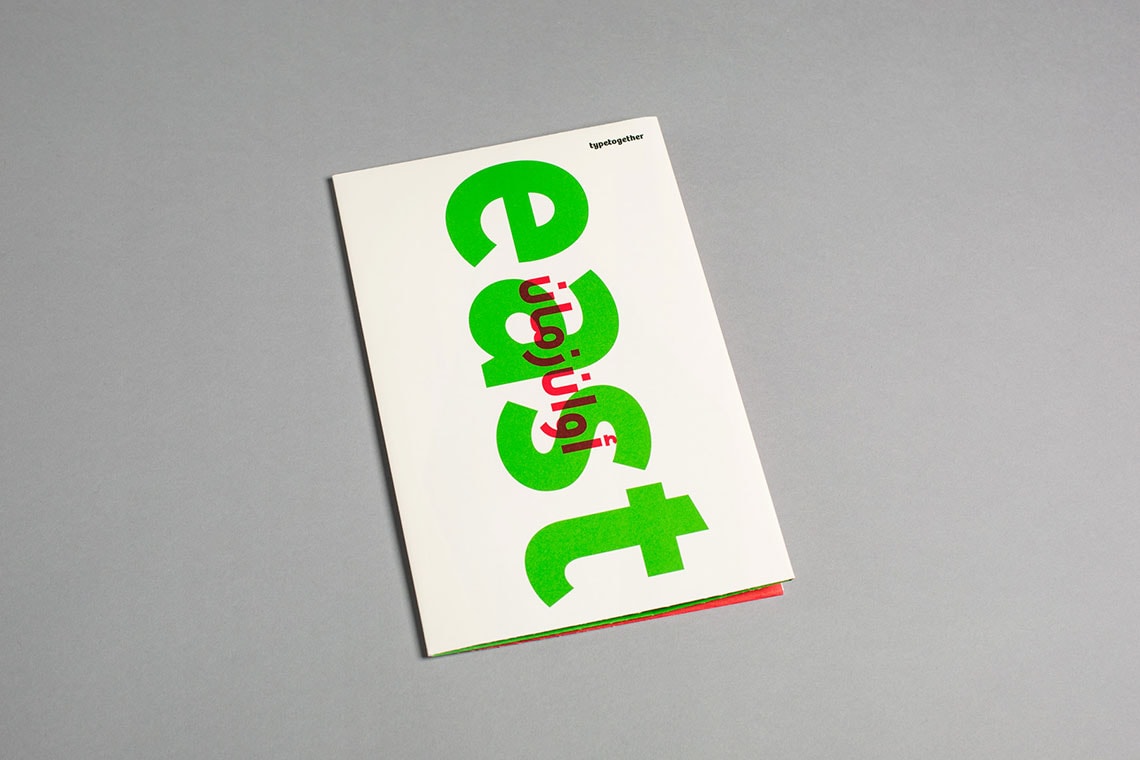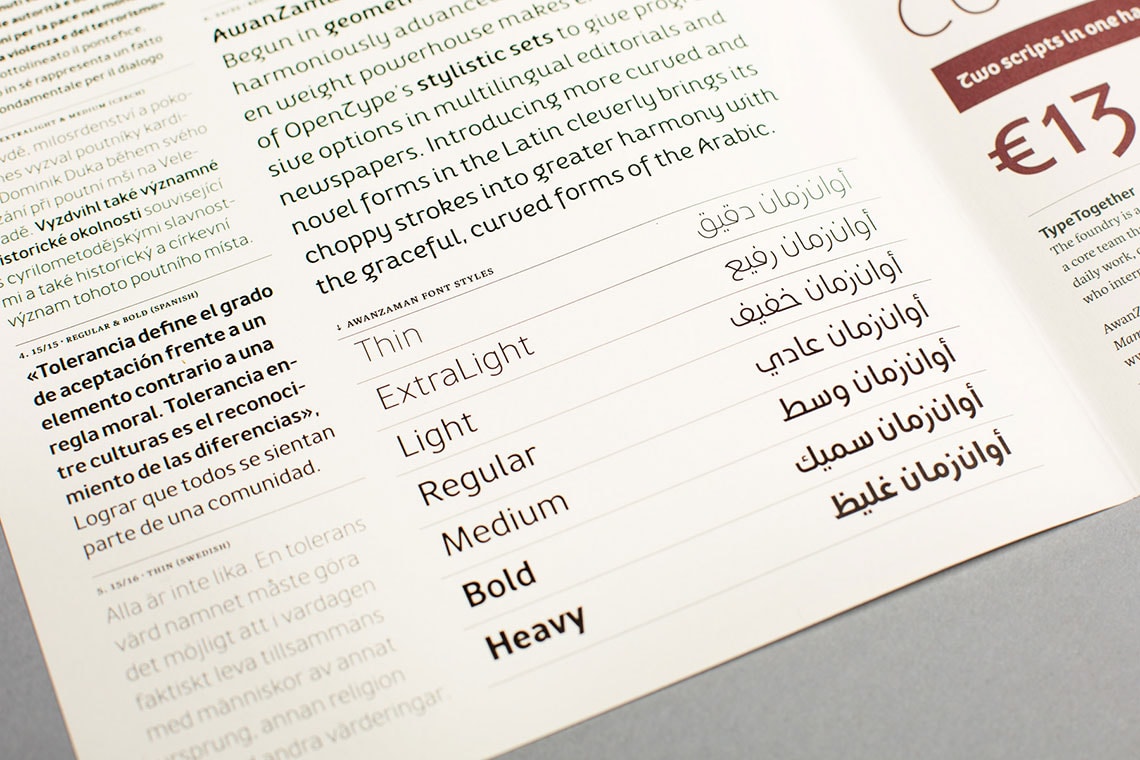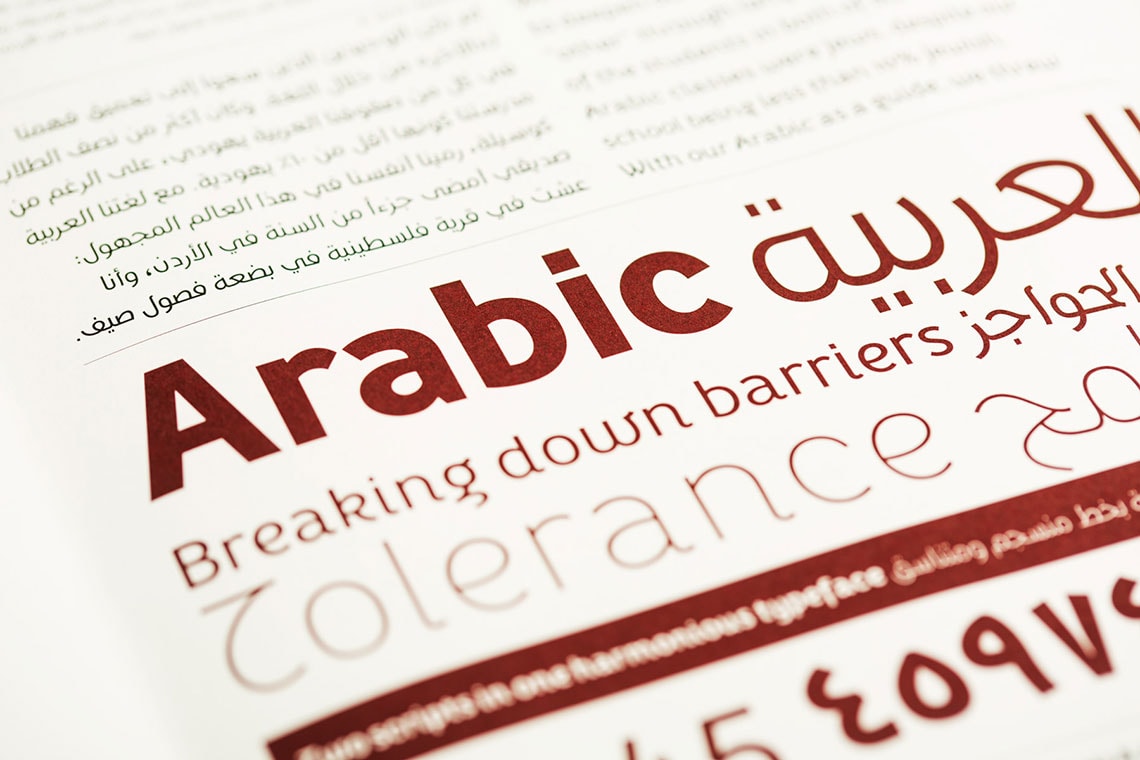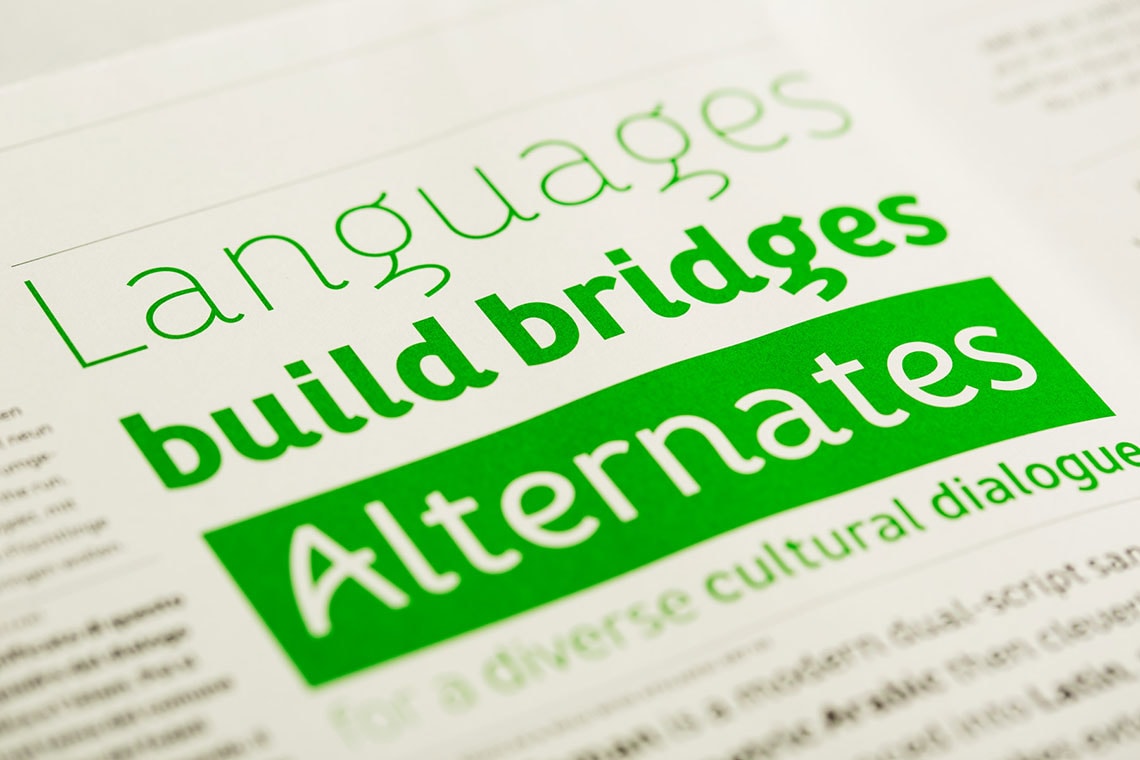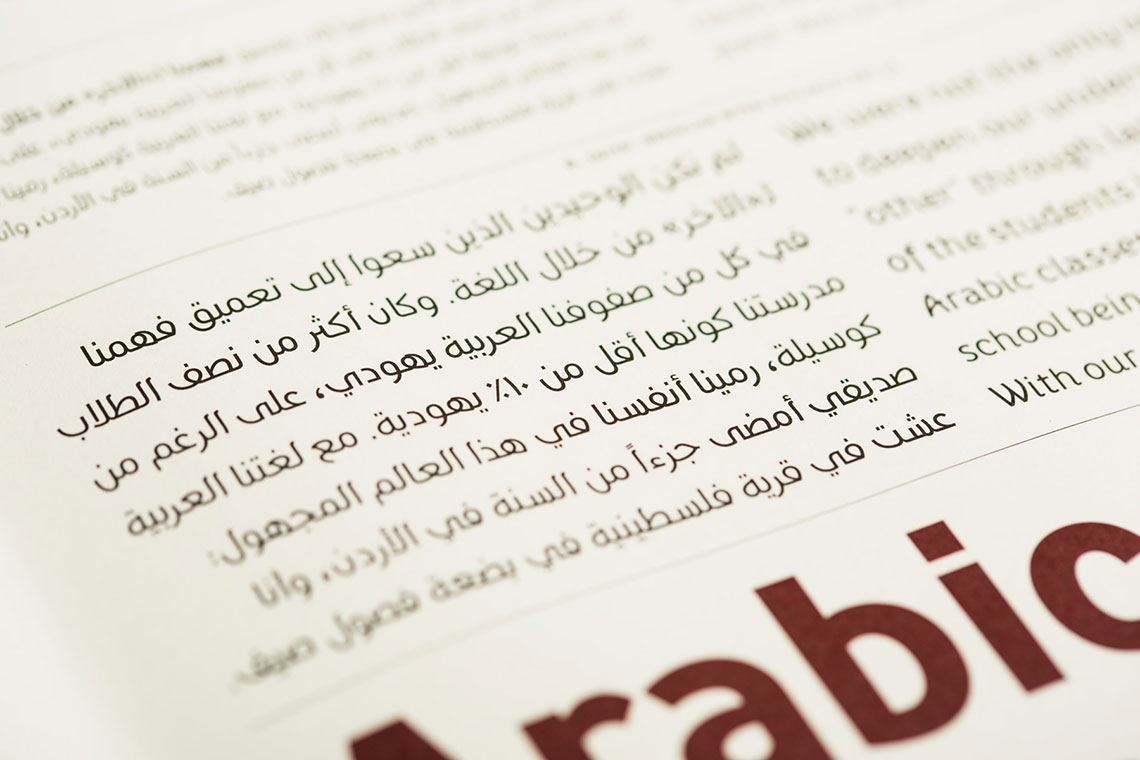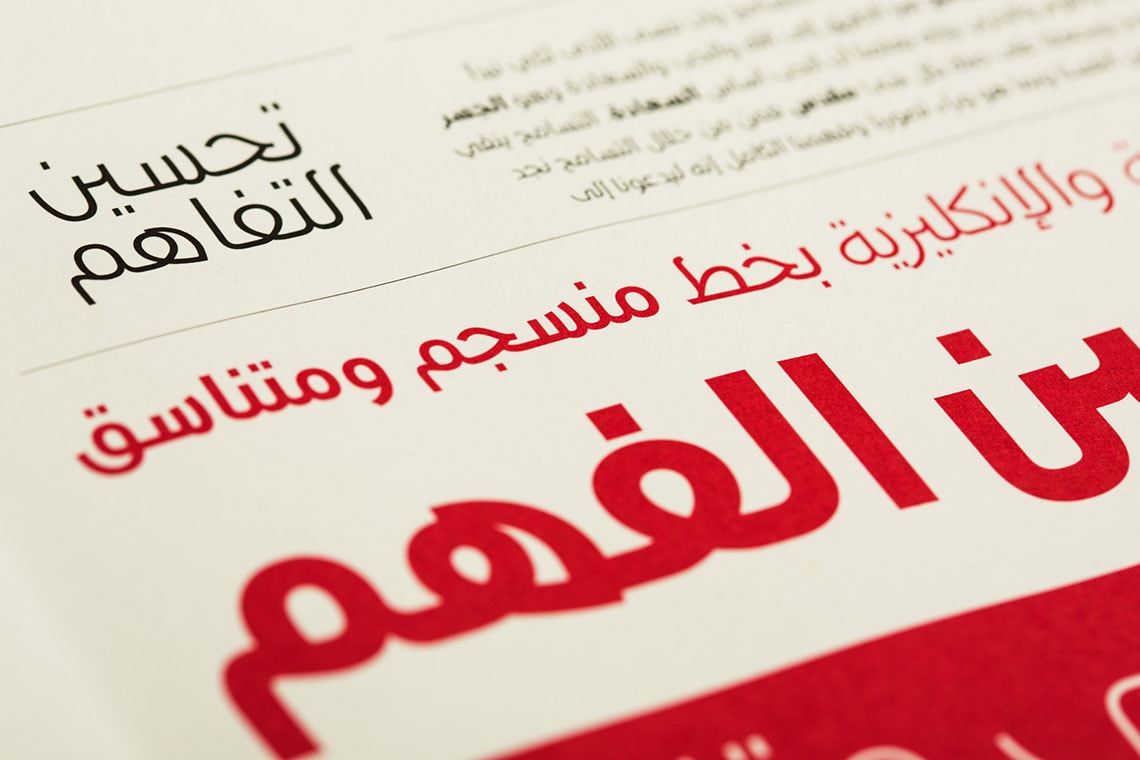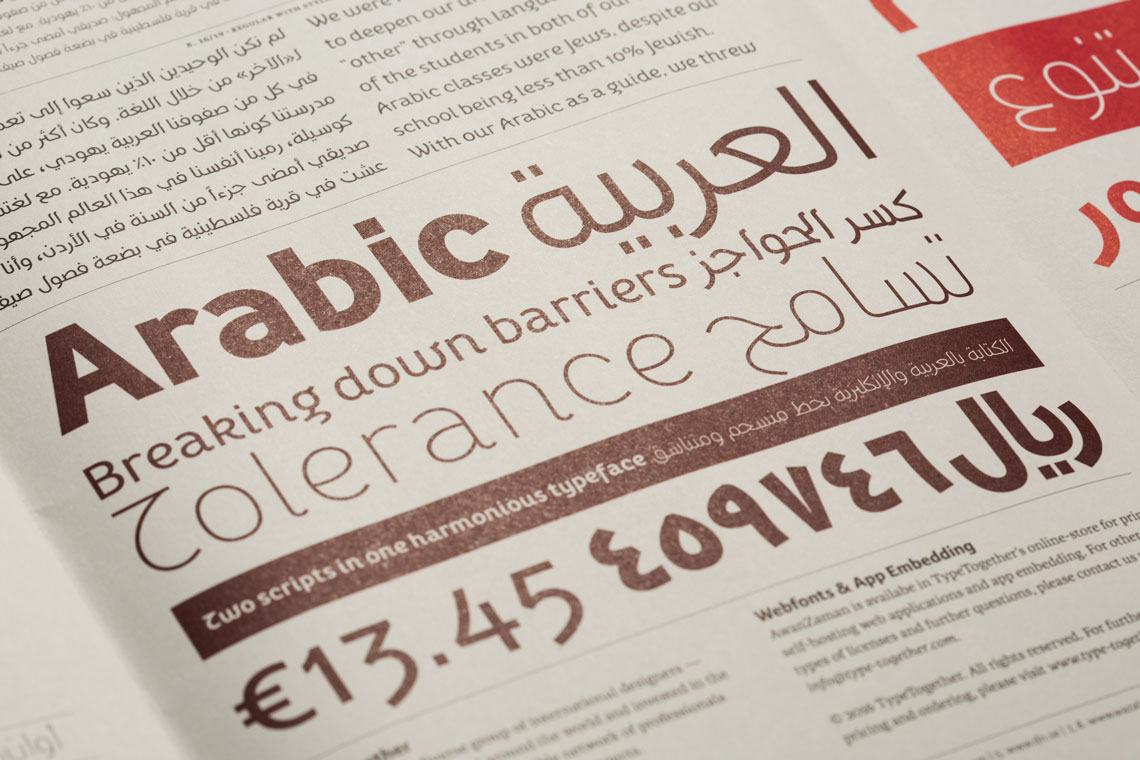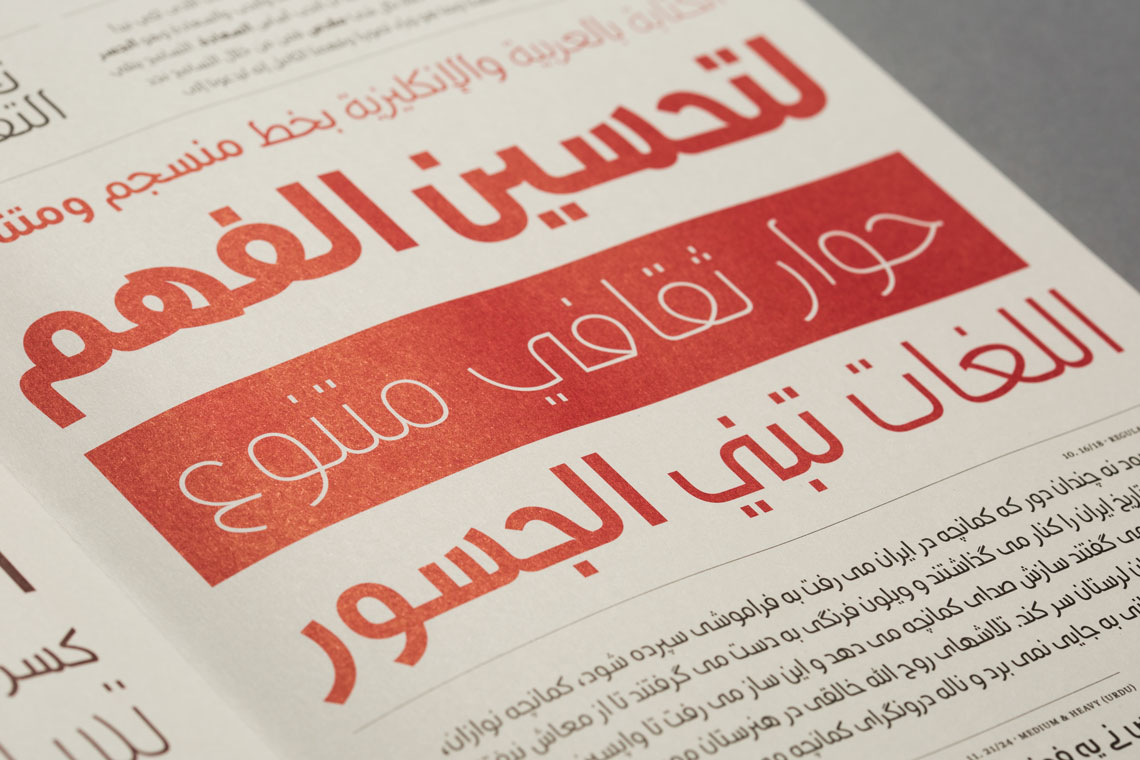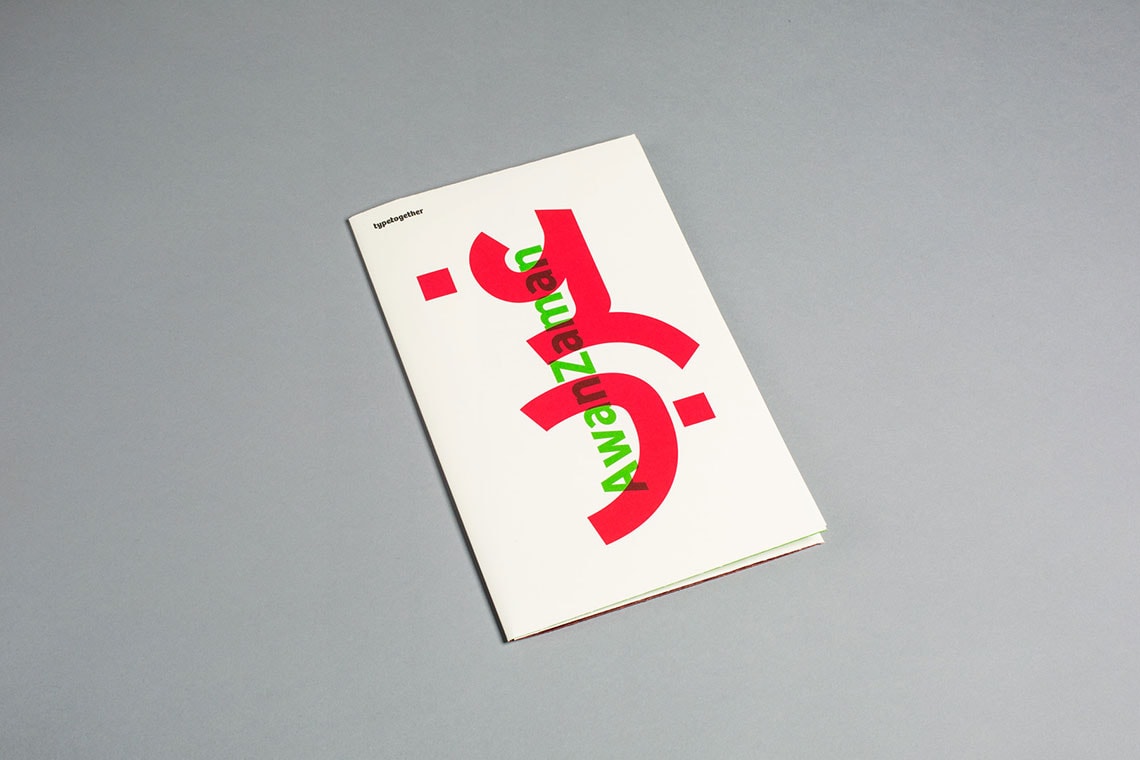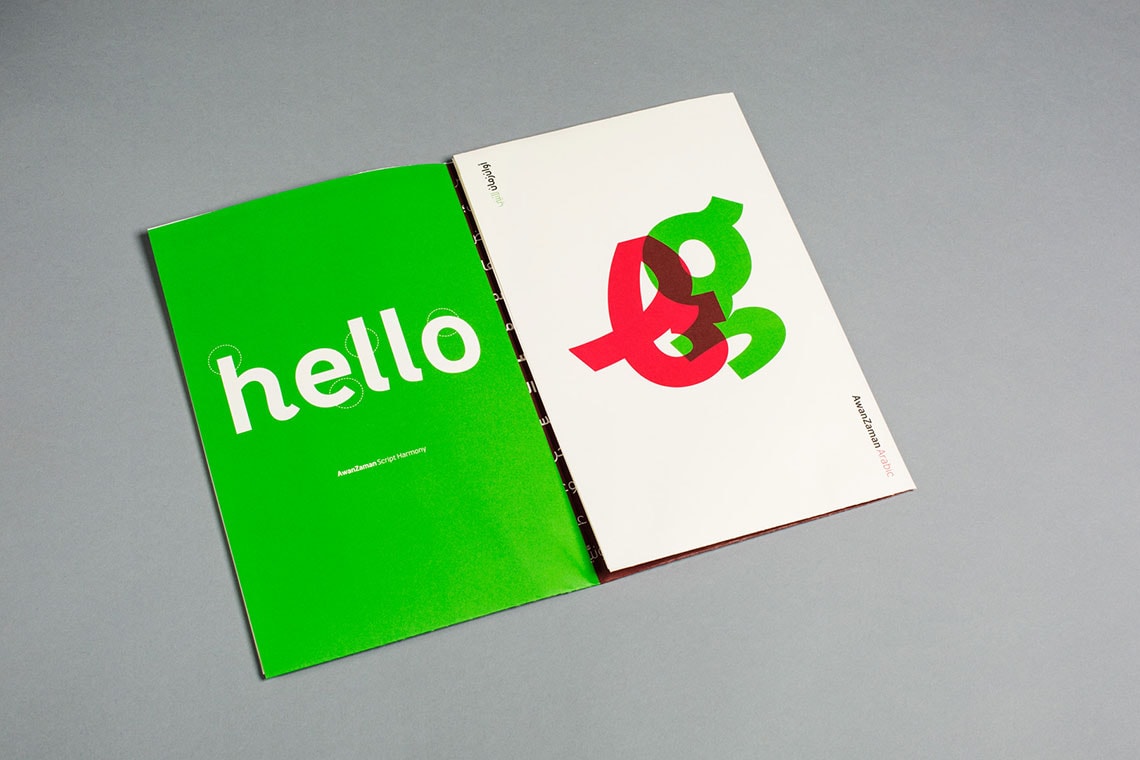
AwanZaman poster specimen
Talented designer Noel Pretorious has designed this beautiful poster featuring AwanZaman, a dual-script geometric Arabic sans, cleverly harmonized with Latin and designed by Dr Mamoun Sakkal and Juliet Shen. It has been printed by PB Tisk in Prague, Czeck Republic, under the supervision of Filip Blazek.